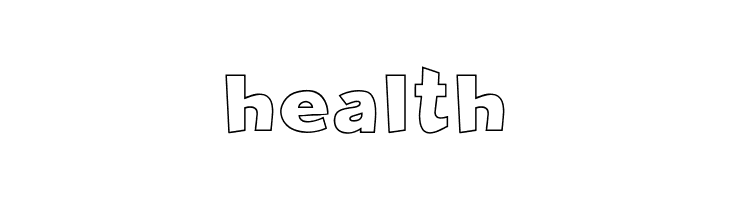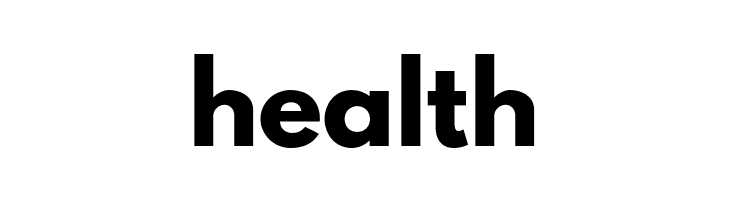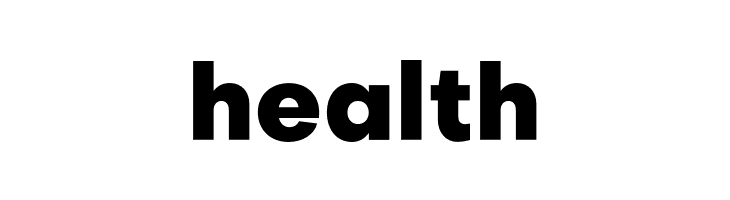
A bold, modern font with strong geometric forms and consistent weight.
A bold, modern sans-serif font with clean lines and a strong presence.
A bold, playful font with a shadow effect and cartoonish style.
A bold, playful font with a quirky, cartoon-like style.
A playful, bold outline font with a whimsical, cartoonish style.
A bold, geometric typeface with uniform strokes and a modern aesthetic.
A bold, geometric font with thick strokes and a modern design.
A bold, slanted font with a modern and dynamic style.
A bold, modern typeface with thick strokes and clean lines.
A bold, modern sans-serif font with thick strokes and strong presence.